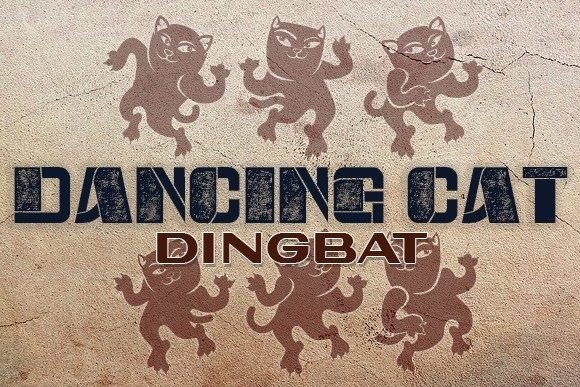
Behold the Dancing Cat Font, a feline-inspired dingbat font that will inject a playful and whimsical charm into your creative projects! Picture an adorable kitty frolicking across your designs, adding a touch of whimsy and delight that's sure to captivate your audience. This font is perfect for injecting a touch of uniqueness to your designs!
Dive into the world of Dancing Cat, where each glyph is a tiny work of art. From mischievous cats striking playful poses to elegant feline silhouettes, this font has it all. Unleash your inner child and let your imagination run wild as you create enchanting posters, flyers, and prints that will leave a lasting impression.
But Dancing Cat is not just a pretty face; it's also incredibly versatile. Whether you're a graphic designer crafting eye-catching posters, a marketer creating captivating flyers, or a passionate crafter adding a personal touch to your handmade creations, Dancing Cat has got you covered. Its playful nature blends seamlessly with a wide range of design styles, making it the perfect choice for those seeking a font that's both distinctive and adaptable.
As you embark on your creative journey with Dancing Cat, you'll discover a font that sparks joy and ignites imagination. Its delightful characters will add a touch of magic to your designs, leaving your audience grinning from ear to ear. So why settle for ordinary fonts when you can dance to the beat of Dancing Cat?
So, whether you're a seasoned designer or just starting your creative adventure, let Dancing Cat be your trusty companion. Its playful charm and endless possibilities will transform your projects into masterpieces that dance off the page. Embrace the magic of Dancing Cat and let your creativity soar!